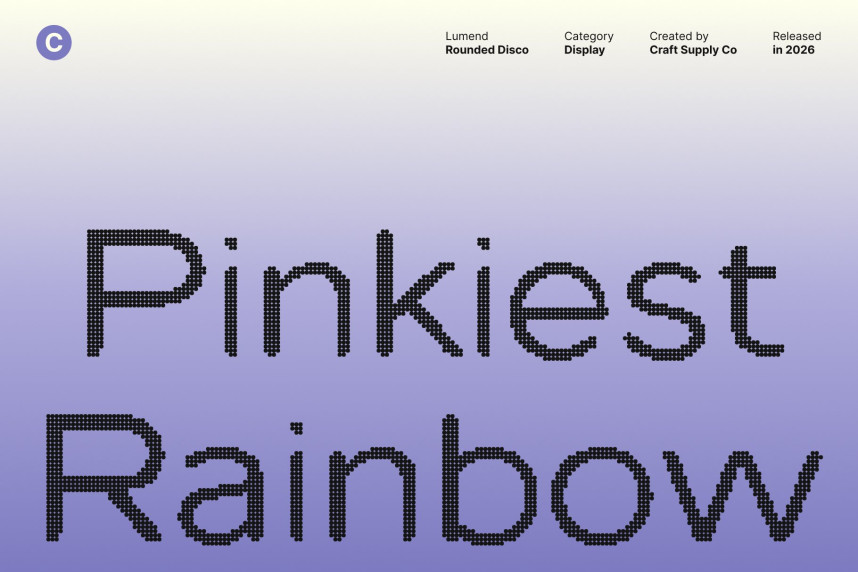
Lumend Rounded Disco Font
Lumend Rounded Disco Font – Soft, Approachable Sans Serif with Playful Disco Energy Gentle Curves with Disco Warmth. This features smooth rounded terminals and a low-contrast sans serif structure that feels soft, welcoming, and easy on the eyes. Enhanced with a subtle disco-inspired rhythm, its letterforms feel lively and expressive like gentle movement under glowing lights.